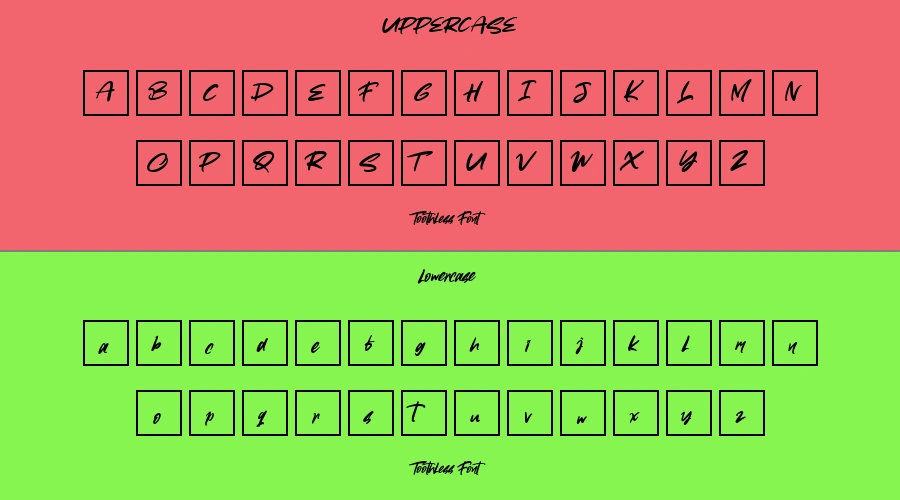
About Toothless Font
Toothless Font represents a sophisticated approach to type design, balancing pen-inspired details with consistency. Perfect for traditional magazines, this font family showcases impressive sophistication and ceremonial suitability throughout its character set. Designers appreciate its versatility and reliability.
Designers will appreciate nuanced touches including elegant curves and word-end alternates, adding sophistication to any project. These features become apparent in pull quotes, where brand recognition matters most. The careful treatment of terminal style and scientific authority ensures optimal performance.